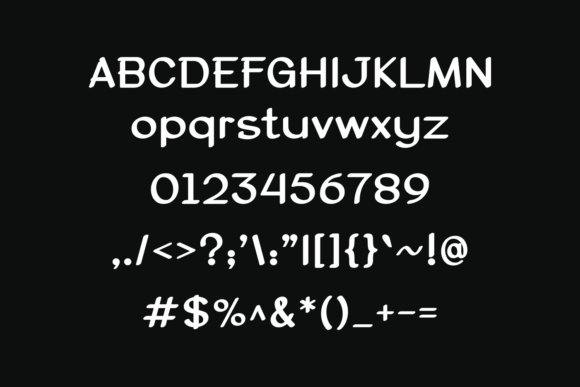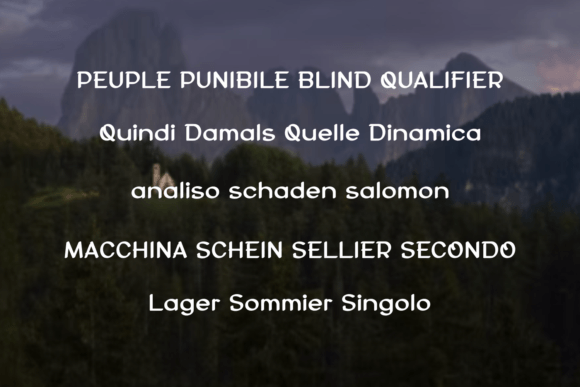
Discovering the Perfect Design Resource: Ronger Font
As a designer, there’s nothing quite like the thrill of staring at a blank canvas, waiting for inspiration to strike. And then, it happens – a spark of creativity ignites, and you know exactly what you want to create. But, what if you’re missing that one crucial element to bring your vision to life? This is where the perfect design resource comes in, and for many designers, that resource is the Ronger Font.
This unique sans serif font is more than just a pretty face; it’s a game-changer for any creative project. With its high-quality details and transparent background, it’s the perfect addition to any design library. Whether you’re working on a branding project or a digital design, the Ronger Font has the potential to elevate your work to the next level.
Key Features of Ronger Font
- High-quality design resource suitable for creative projects requiring a unique touch.
- Features a transparent background, allowing for seamless integration with different backgrounds and designs.
- Unique, modern design style that sets it apart from other fonts, perfect for making a statement in creative projects.
- Perfect for use in graphic design, digital art, and other creative endeavors where a distinctive font is required.
Honest Review: Ronger Font
As a designer, I’m always on the lookout for high-quality design resources to elevate my creative projects. Recently, I had the chance to work with the Ronger Font, and I’m excited to share my honest review.
What works well: ✨ I was impressed with the font’s sleek and modern design, making it perfect for a wide range of creative projects. The transparent background also made it easy to integrate into my designs. The free download option was a definite bonus, as it saved me some valuable design budget.
- High quality design suitable for various creative projects
However, there are some limitations: ⚠️ The font family is relatively small, which may limit its versatility. Additionally, some characters may not display correctly in certain font sizes or styles.
Overall, I’m impressed with the Ronger Font’s potential, but I would love to see an expansion of the font family in future updates. As it stands, it’s a solid choice for designers looking for a modern and sleek font option.
Introduction to Ronger Font
Tips for Getting the Most Out of Ronger Font
For optimal results, use Ronger Font on a transparent background to achieve a clean and modern look.
Experiment with different font sizes and styles to create a unique design.
Common Use Cases for Ronger Font
Ronger Font is suitable for a variety of creative projects, including:
Business cards and brochures
Marketing materials and social media graphics
Web design and e-books